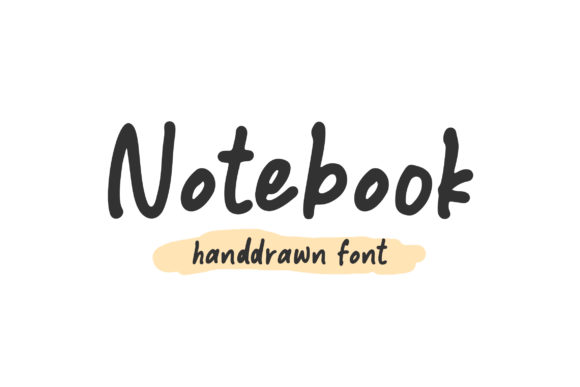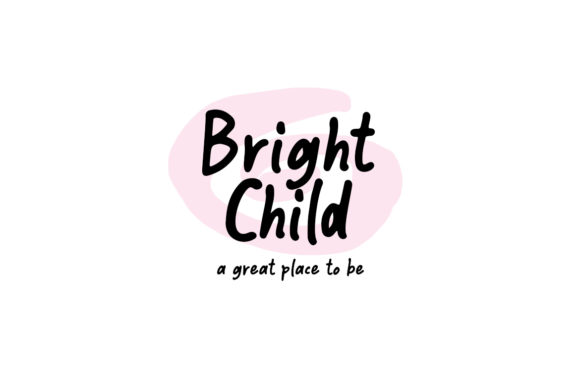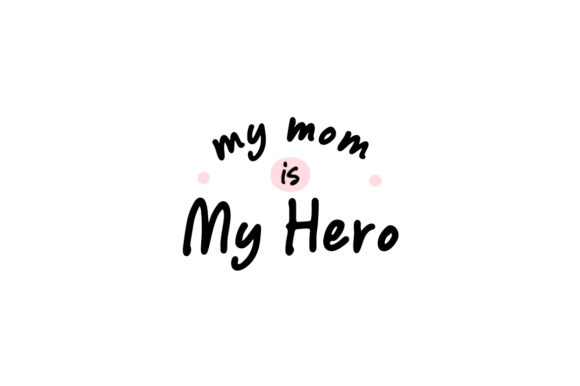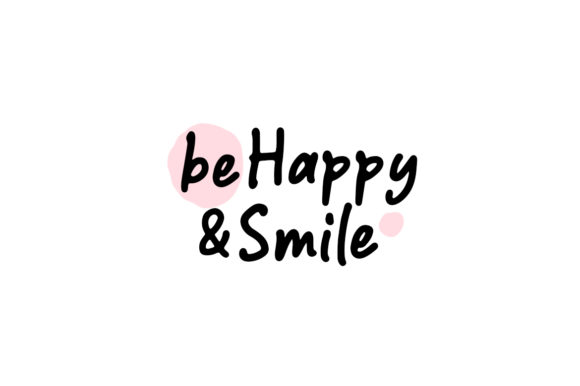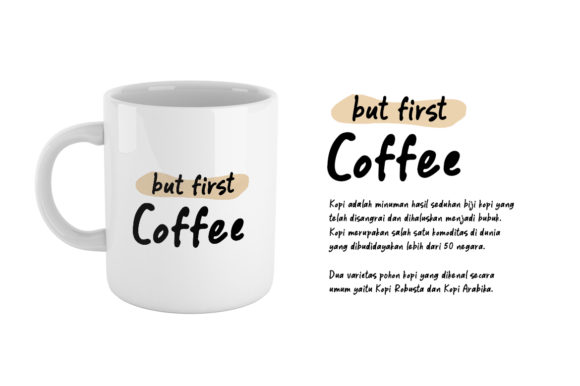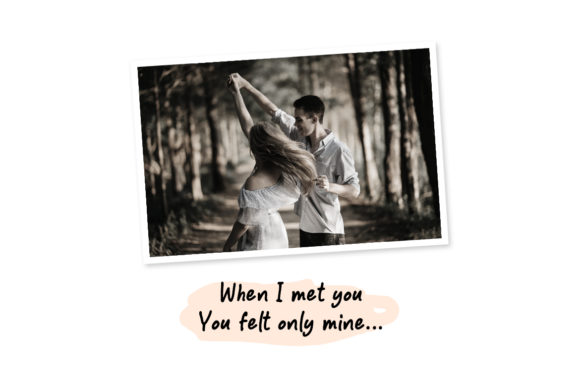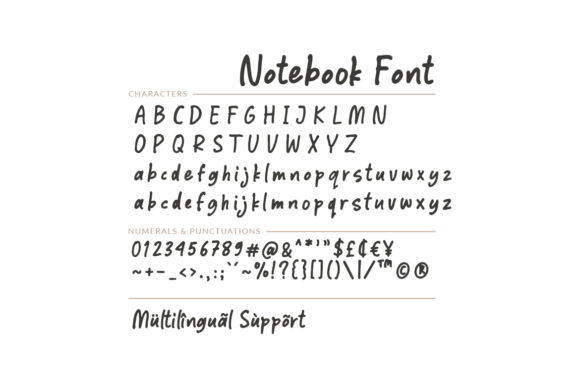
Notebook Font
About Notebook Font
Notebook is a cute and casual handwritten font with an incredibly friendly feel. Whether you’re looking for fonts for Instagram or calligraphy scripts for DIY projects, this font will turn any creative idea into a true piece of art!